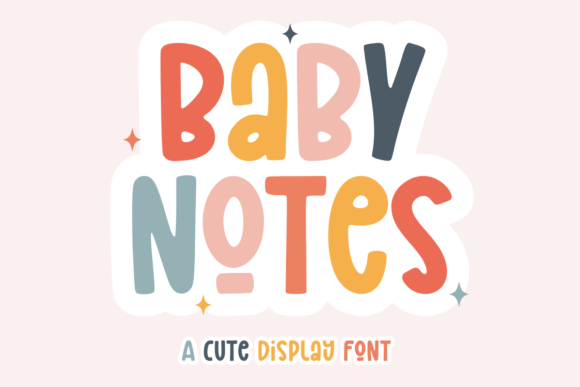
Bringing Whimsy to Your Designs: Discover the Magic of Baby Notes Font
There’s something special about the moment when a creative spark ignites – the rush of ideas, the excitement of bringing a concept to life. For designers, it’s often the search for the perfect font that can elevate their work from good to great. That’s where Baby Notes Font comes in – a charming, whimsical font that adds a touch of playfulness to any project.
With Baby Notes Font, you can add a dash of personality to your designs, from book covers to trendy t-shirt designs. Its versatility makes it a valuable asset for any designer, allowing you to experiment with different letter combinations and create unique, eye-catching visuals. Whether you’re working on a crafting project or creating enchanting children’s apparel, Baby Notes Font is the perfect match.
Baby Notes Font Key Features
- Unique Characteristics: The Baby Notes font features a playful, handwritten style with rounded edges and subtle imperfections, making it perfect for creating a personal and childlike feel in designs.
Baby Notes Font Review
I recently had the chance to work with the Baby Notes Font, and I must say it was a unique experience. Here are my thoughts on what works well and what doesn’t.
- Expressive character set: The font has a lovely, whimsical feel that’s perfect for creative projects, such as children’s books or scrapbooking.
- Handwritten feel: The font’s imperfections give it a charming, handmade quality that’s hard to replicate with digital fonts.
- Limited legibility: The font’s handwritten style can make it difficult to read at small sizes or in certain contexts.
- Not suitable for formal documents: The font’s playful, expressive nature makes it unsuitable for formal documents, such as resumes or business reports.
The Baby Notes Font is a lovely, unique font that’s perfect for creative projects. While it has some limitations, it’s a great choice for designers who want to add a touch of whimsy to their work.
Getting the Most Out of Baby Notes Font
Baby Notes Font is commonly used in:
- Baby shower invitations and decorations.
- Personalized baby gift tags and cards.